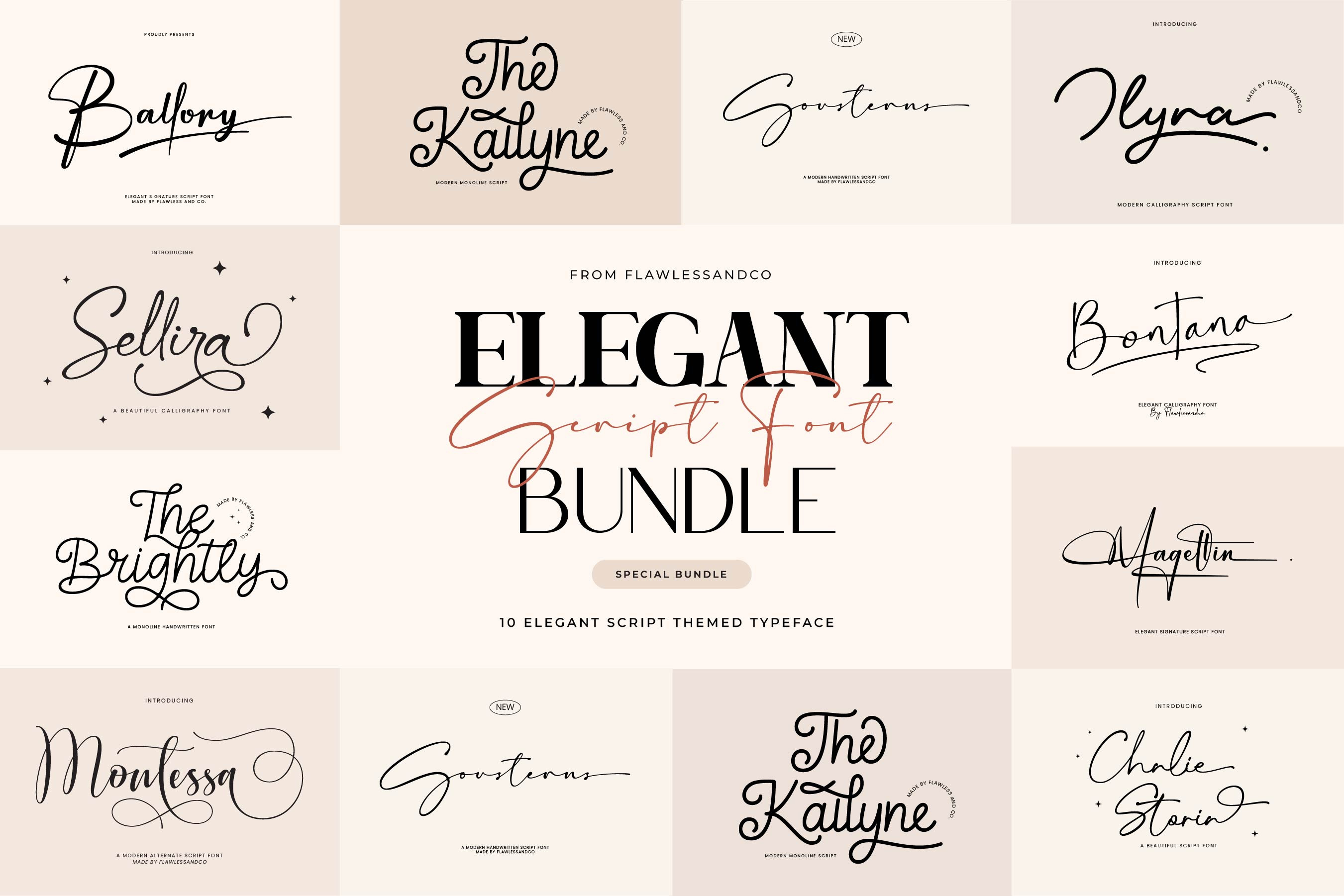
Elegant Script Font Bundle
Introducing the "Elegant Script Font Bundle" — a collection of ten exquisite script fonts that redefine elegance in every stroke. This exclusive bundle is a celebration of sophistication, offering a diverse range of signature-style fonts crafted to elevate your designs.
This bundle include 10 high quality funny font. Suitable for any graphic designs such as branding materials, t-shirt, print, business cards, logo, poster, t-shirt, photography, quotes .etc
Multilingual Uppercase alphabet A-Z Lowercase alphabet a-z Alternate Character Numbers 0-9 Some punctuation